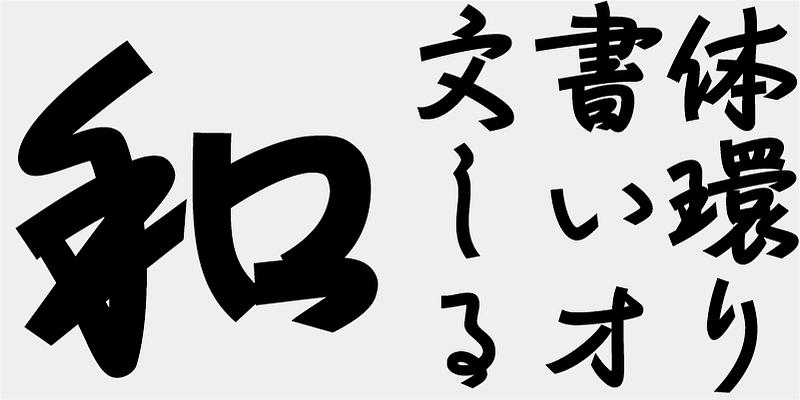
AB Ryusen Aki Font Free Download is a beautifully crafted Japanese display typeface that blends traditional elegance with seasonal inspiration—Aki meaning "autumn" in Japanese. Characterized by its brush-style strokes and refined structure, this font evokes a poetic and nostalgic feel, making it ideal for cultural posters, book covers, seasonal packaging, and artistic branding.
AB Ryusen Aki carries a natural flow and organic rhythm, reminiscent of handwritten kanji with the delicate touch of a calligraphy brush. Whether used for event titles, gallery flyers, or traditional product labels, AB Ryusen Aki Font Free Download brings warmth, emotion, and visual texture to your typography.
Its expressive yet controlled form makes it perfect for large headings and decorative text. The font pairs well with minimal, clean typefaces, allowing its artistic personality to shine while maintaining balance in your layout.